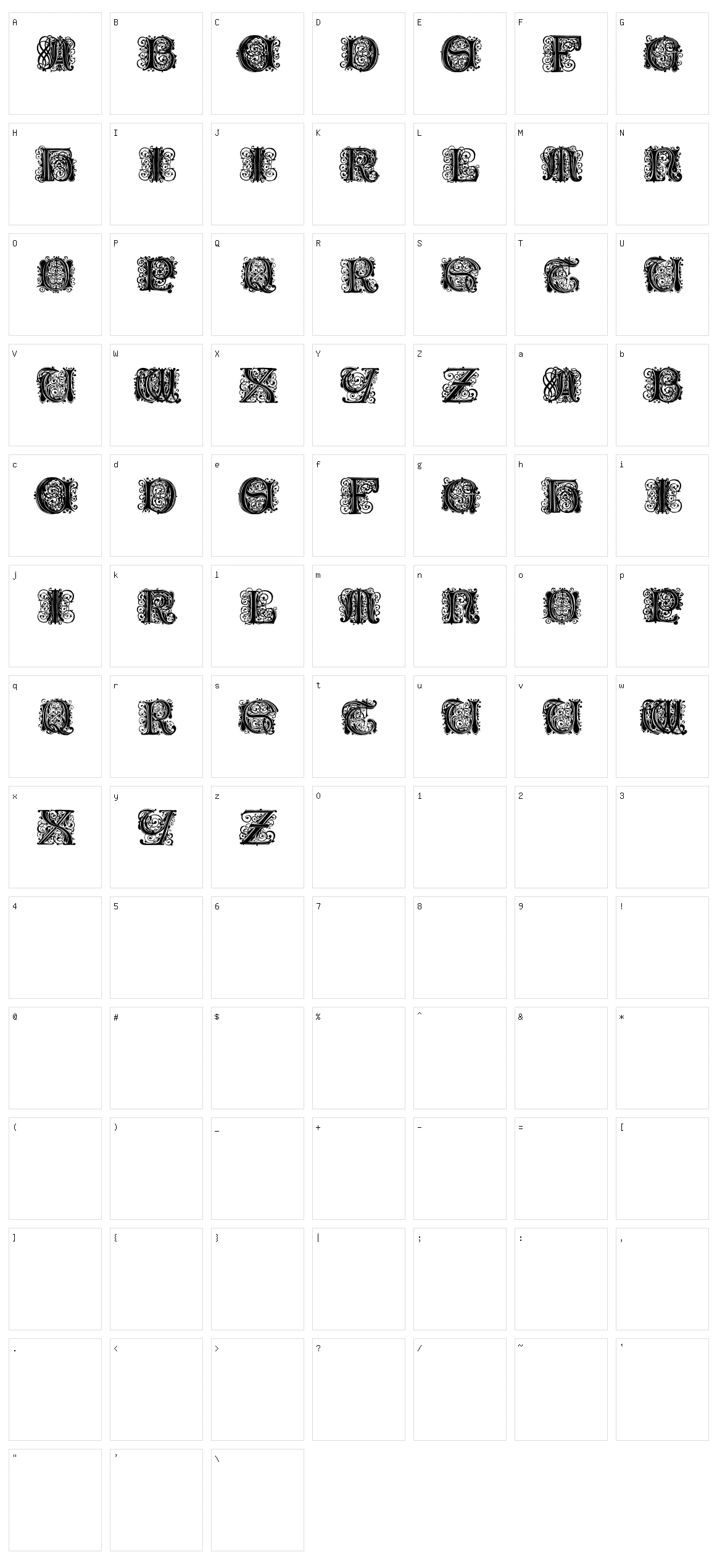
The free font Paulus Franck Initialen is carefully designed by Dieter Steffmann, showcasing a thoughtful balance of creativity and usability and belongs to the Gothic font family. When you download the ZIP file, it contains only 645.29 KB of font files, making it lightweight and quick to download. Please review the license details below to understand permitted usage and distribution rights. If license information is not available, we recommend using this font for personal projects only or contacting the author directly for commercial usage permissions.